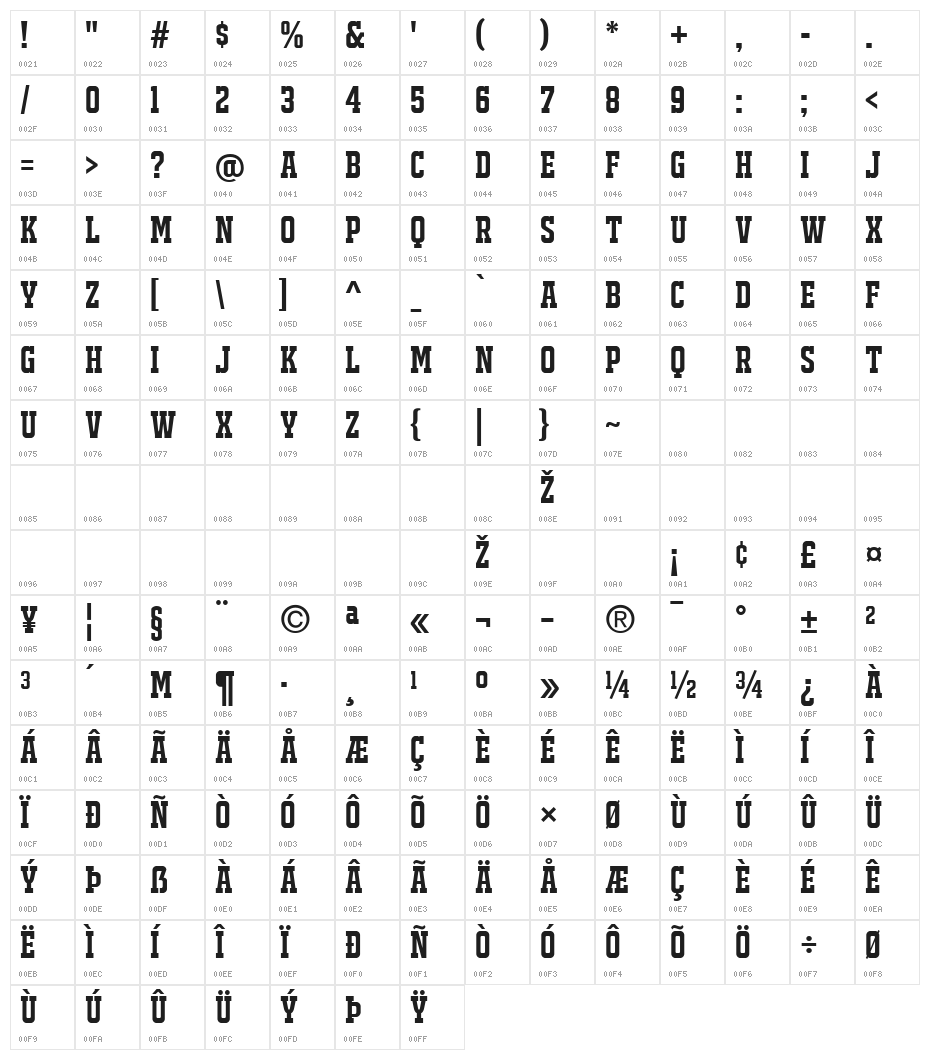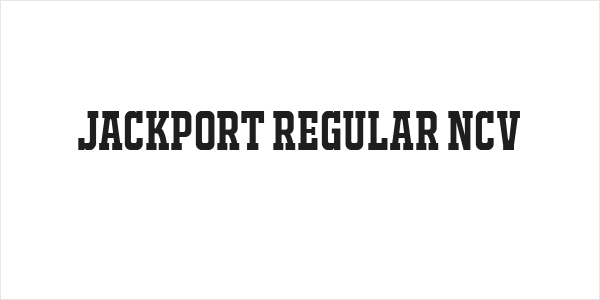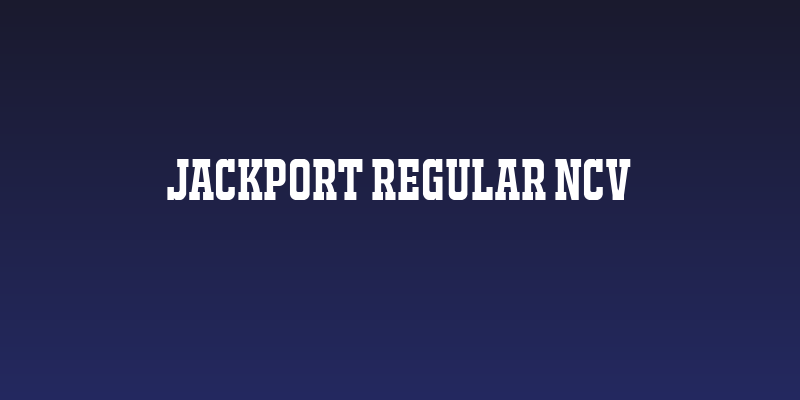
JACKPORT REGULAR NCV Font
JACKPORT REGULAR NCV Description
This font exhibits a bold and impactful style, characterized by thick, block-like letters that convey strength and authority. The uppercase and lowercase letters maintain a consistent width, creating a uniform appearance. The numbers and special characters are equally robust, ensuring readability and emphasis. The overall design is reminiscent of vintage sports or collegiate themes, making it ideal for projects that require a strong visual presence. Its slab serif elements add a touch of classic appeal, while the boldness ensures it stands out in any context.
| Proposed Projects | Ideal for sports branding, posters, headlines, and any design needing a strong, authoritative presence. |